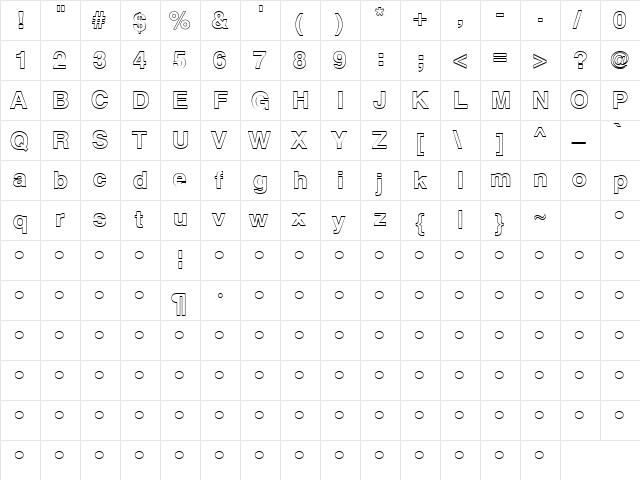
QTHelvet-BoldOutline Regular
Design Context for QTHelvet-BoldOutline Typeface
QTHelvet-BoldOutline is built around its visual character rather than neutral utility — its distinctive forms are designed to make an impression at display sizes. Its bold stroke weight gives it real presence on the page.
Font Pairing: Pair with a clean neutral sans-serif for body copy to let QTHelvet-BoldOutline's character lead without overwhelming the composition.
Pro Tip: Use QTHelvet-BoldOutline exclusively at display sizes — it was designed to be seen, not read at length. Let a neutral companion handle body copy.